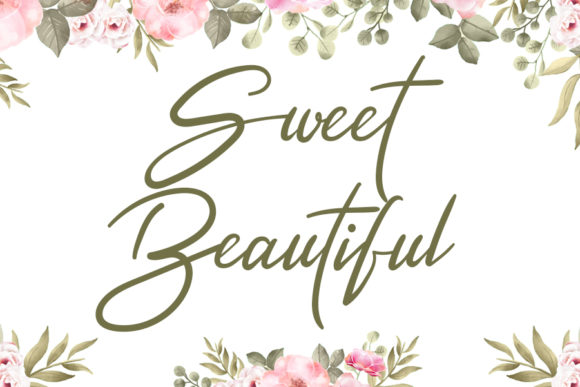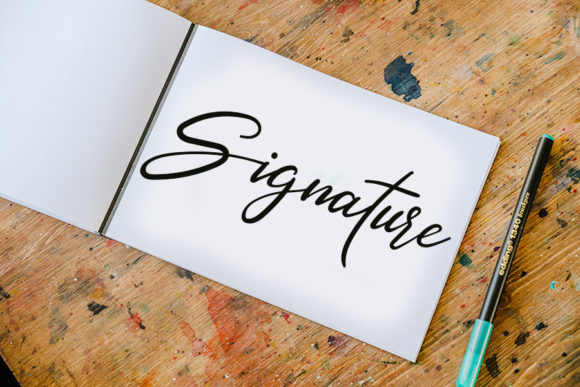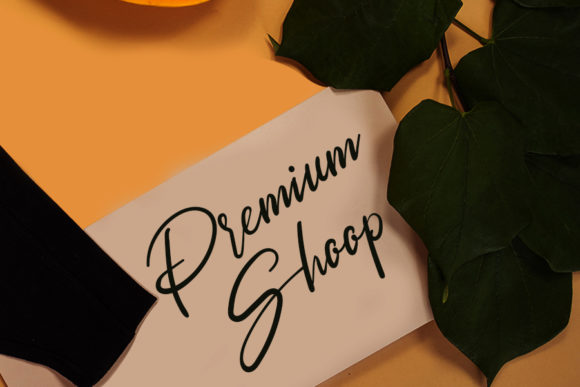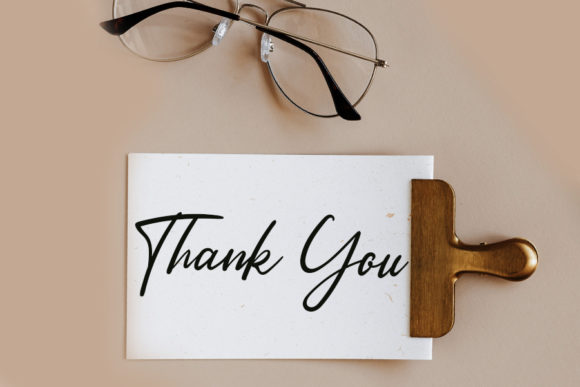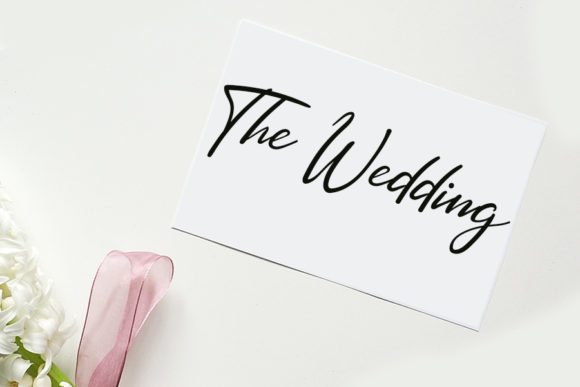
HomePersonal Use FreeSweet Beautiful Personal Use Free Sweet Beautiful FacebookTwitterPinterestWhatsApp 1 of 5 About Sweet Beautiful Font Sweet Beautiful Is a delicate handwritten font. Its distinct and well rounded letters make this font a masterpiece. Fall in love with its incredibly versatile style and use it to create spectacular designs! DOWNLOAD NOW People also explored Dinomiko Font Bernadine Script Font Happy New Year Font Dalgona Bestolen Font Amitha Font Tattoo Font Pretty Font Nabilla Kalya Font Michela Duo Font 140 0 TagsSweet Beautiful Font Previous articleCinderellaNext articleSunflower LEAVE A REPLY Cancel reply Comment: Please enter your comment! Name:* Please enter your name here Email:* You have entered an incorrect email address! Please enter your email address here Website: Save my name, email, and website in this browser for the next time I comment. Personal Use Free Sellena Brush Font Personal Use Free Read more about this font Sushi Stroke Personal Use Free Read more about this font Equestrain Personal Use Free Read more about this font Rogueland Personal Use Free Read more about this font BLOG Free Fonts Risk: Why Free Fonts Can Be Dangerous for Designers Free Fonts Risk: Why Free Fonts Can Be Dangerous for Designers Using free fonts is a common practice in web and graphic design. However, the... Top 7 Google Fonts Alternatives for Faster and Privacy-Friendly Web Design (2025) Using Fonts in Digital Marketing: Tips to Strengthen Your Brand Identity Transform Your Website: Elevate Your Typography with 7 Best Web Font Generators